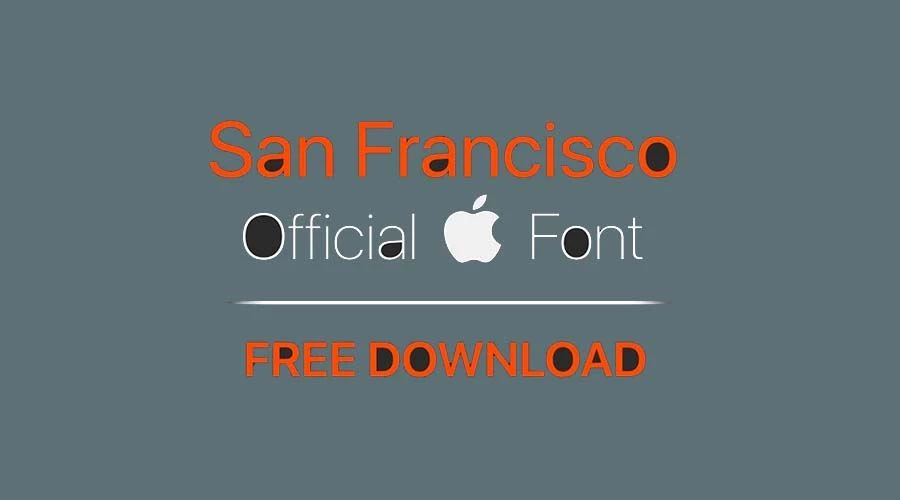
San Francisco Font
San Francisco is a neo-grotesque sans-serif typeface font. Apple Inc is the founder of this font. It was first released on November 18, 2014. The San Francisco font is inspired by Helvetica and DIN. San Francisco font has three main variants and others are for the internal use by Apple. The three main variants are given below.
• SF for macOS, iOS, and iPadOS
• SF Compact for watchOS
• SF Mono for the Terminal, Console, and Xcode applications.
Sans Francisco font is the system typeface of Apple. You can also see this font on Apple’s website.
• SF Pro
• SF Compact
• SF Mono